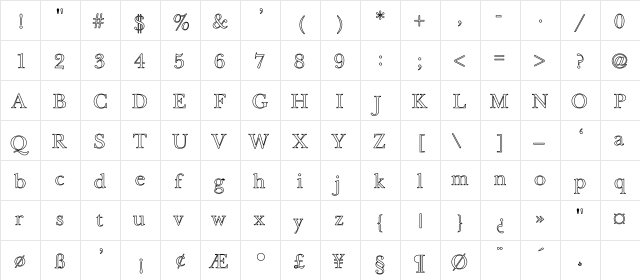
NewBaskerville-Light Hollow Regular
Design Context for NewBaskerville-Light Hollow Typeface
NewBaskerville-Light Hollow offers clean, dependable letterforms without strong stylistic allegiance, making it a practical choice for designers who need flexibility. Its slender proportions lend an understated elegance to any composition.